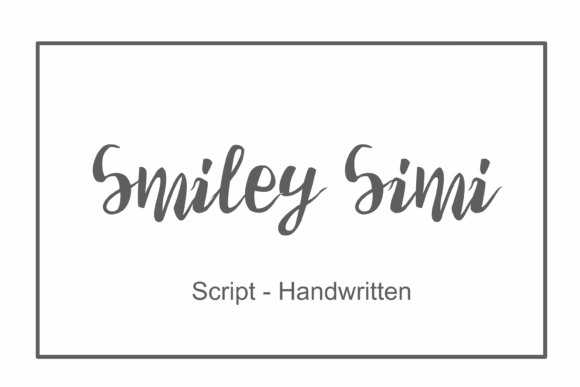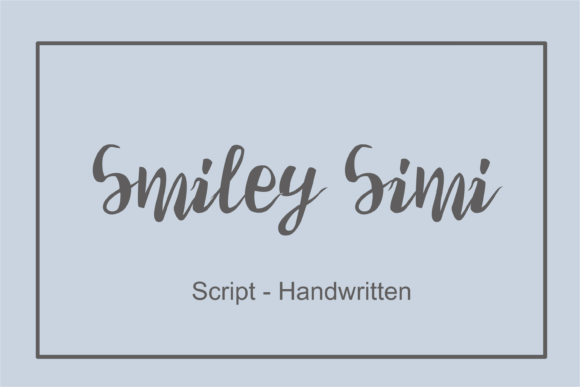
Introduction to Smiley Simi Font
Smiley Simi is a bouncy handwritten font, carefully handcrafted to become a true favorite.
Its casual charm makes it appear wonderfully down-to-earth, readable and, ultimately, incredibly versatile Smiley Simi will look outstanding in any context, whether it’s being used on busy backgrounds or as a standalone headline.